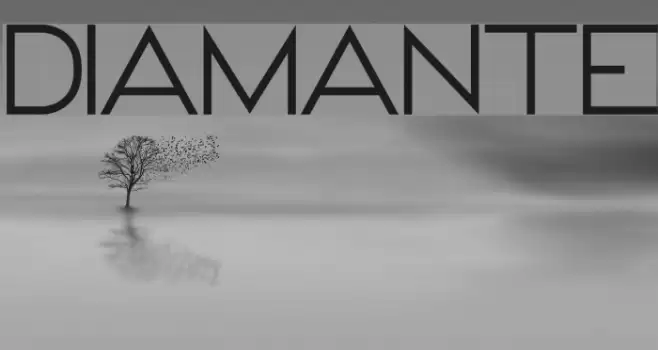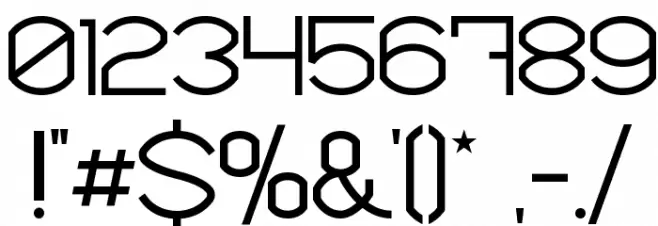
DIAMANTE Font
DIAMANTE Description
This font features a geometric and modern design with clean, straight lines and a uniform stroke width. The characters are constructed with a minimalist approach, emphasizing clarity and simplicity. The uppercase letters are bold and striking, while the lowercase letters maintain a consistent style that complements the overall aesthetic. The numerals and special characters follow the same design principles, ensuring a cohesive look across all elements. This font is ideal for projects that require a contemporary and sophisticated appearance.
A geometric and modern font with clean lines and uniform stroke width from Uncategorized fonts.
- Proposed Projects: Ideal for branding, advertising, digital media, and modern print design projects.
- Use Case: Headlines, Logos, Digital media